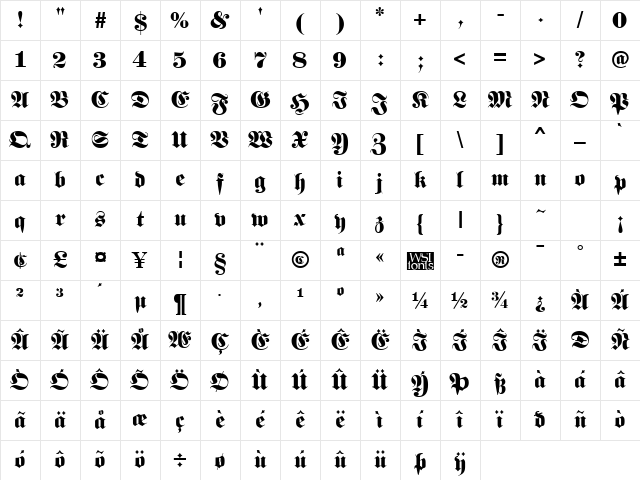
Luftwaffe Regular Free Font
Luftwaffe Regular
Luftwaffe Family
Design Context for Luftwaffe
Luftwaffe is a composed and adaptable typeface that performs quietly and consistently across a wide range of design contexts.